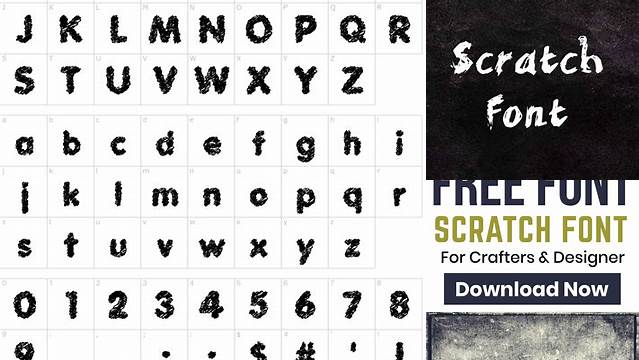
FF Scratch Font: Free Download Guide & Usage Tips
Hey guys, if you're on the hunt for a cool, free font that's got that edgy, hand-drawn vibe, you've probably stumbled upon the FF Scratch font. It's a real gem for adding a unique touch to your designs, whether you're working on a website, creating graphics, or just looking to spice up your personal projects. This article is your ultimate guide to the FF Scratch font, including how to get a free download, use it effectively, and explore its awesome features. Let's dive in!
What is FF Scratch Font?
So, what exactly is FF Scratch? Well, it's a typeface that's all about the raw, unpolished aesthetic. Think of it as the digital equivalent of a handwritten note or a piece of graffiti. It’s designed to mimic the look of scratching or scribbling, giving your text a dynamic, almost rebellious feel. The font is often characterized by its slightly irregular lines and the impression that it was created with a pen or marker. It's a display font, meaning it's best used for headlines, titles, and other instances where you want your text to really stand out. Unlike more traditional fonts, FF Scratch isn't designed for long blocks of text; its strength lies in its visual impact. It's perfect for projects where you want to convey a sense of creativity, informality, or even a bit of grit. Because FF Scratch is a display font, it allows designers to use large font sizes and bold weights. The unique design ensures that the text is still readable and eye-catching. When applied correctly, FF Scratch can boost readability. It also helps to make your text stand out more than other fonts. The font's popularity stems from its ability to add a human touch to digital designs. In a world where everything can feel overly polished, FF Scratch offers a breath of fresh air, injecting personality and individuality into your work. Many designers find it a refreshing alternative to the sleek, sans-serif fonts that dominate the digital landscape. It's a great way to capture the essence of handmade art or street style. The FF Scratch font allows a perfect balance between readable and unique styles. The best way to use this font is with other fonts or when you need a good contrast for your work.
Best Uses for FF Scratch Font
FF Scratch is a versatile font, but it shines best in certain applications. Think about these ideas:
- Logos and Branding: The edgy, hand-drawn look of FF Scratch can make your logo stand out. It's perfect for brands that want to project creativity, a bit of rebellion, or an informal feel.